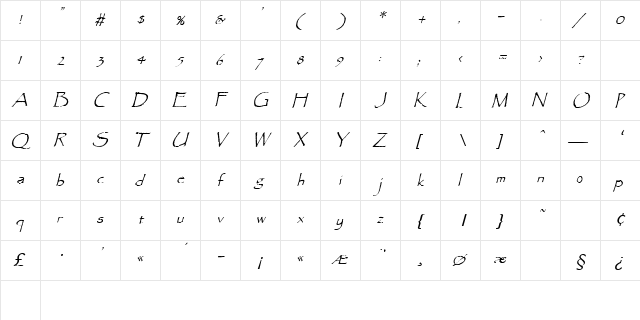
Paradox Italic
Design Context for Paradox Typeface
Paradox is a composed and adaptable typeface that performs quietly and consistently across a wide range of design contexts. Its italic angle brings a sense of urgency and motion to the letterforms.
Pro Tip: Use Paradox for emphasis, pull quotes, and subheadings where its slanted energy can add rhythm to the layout.